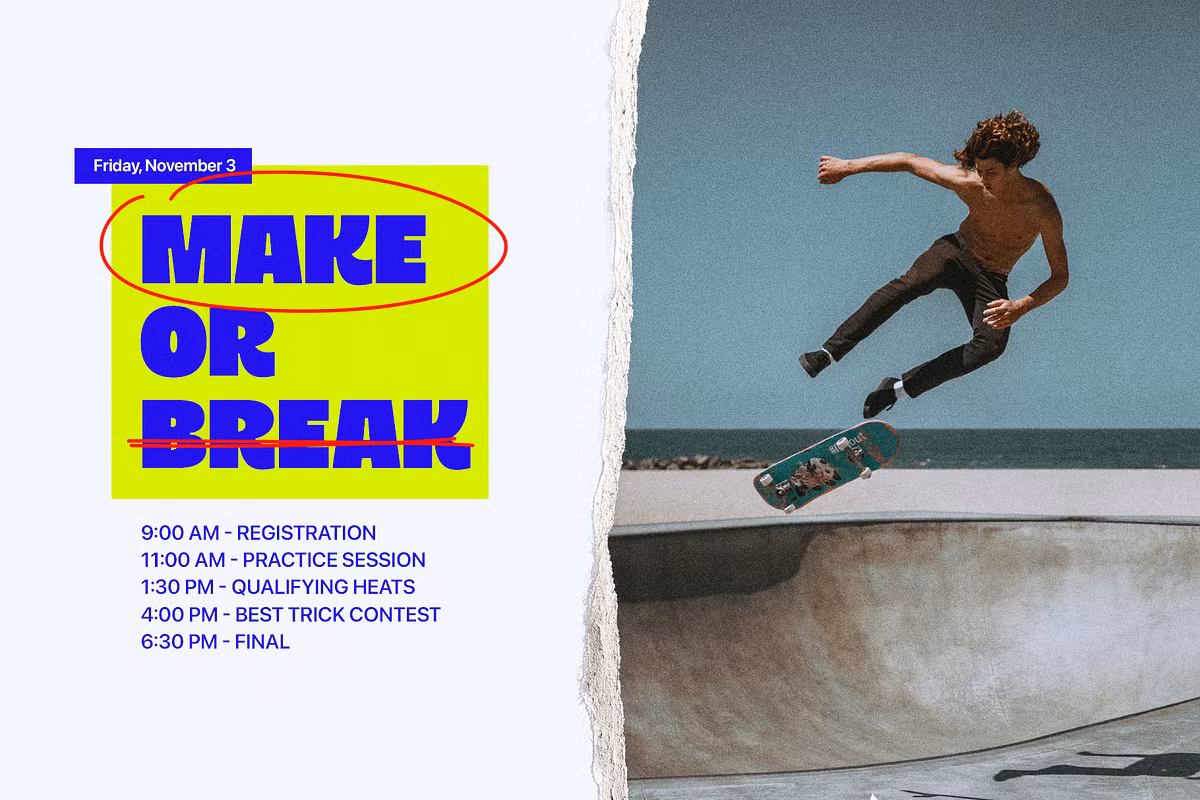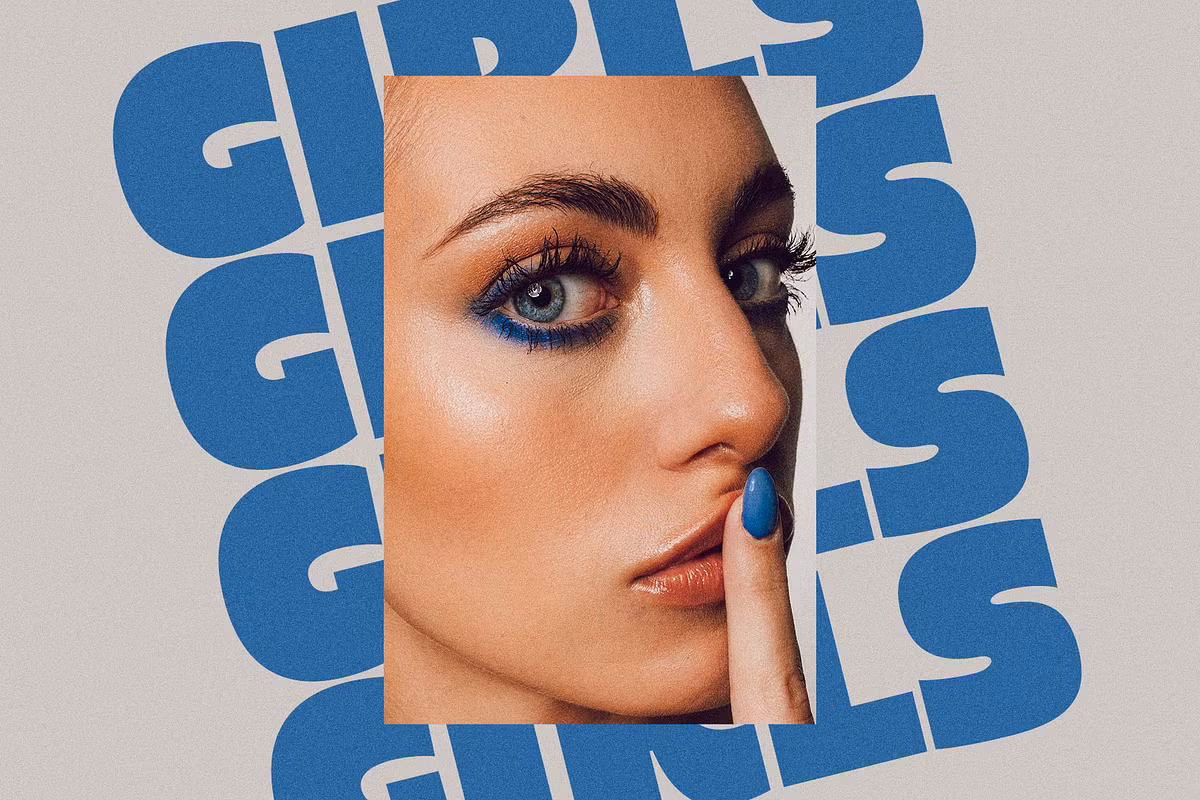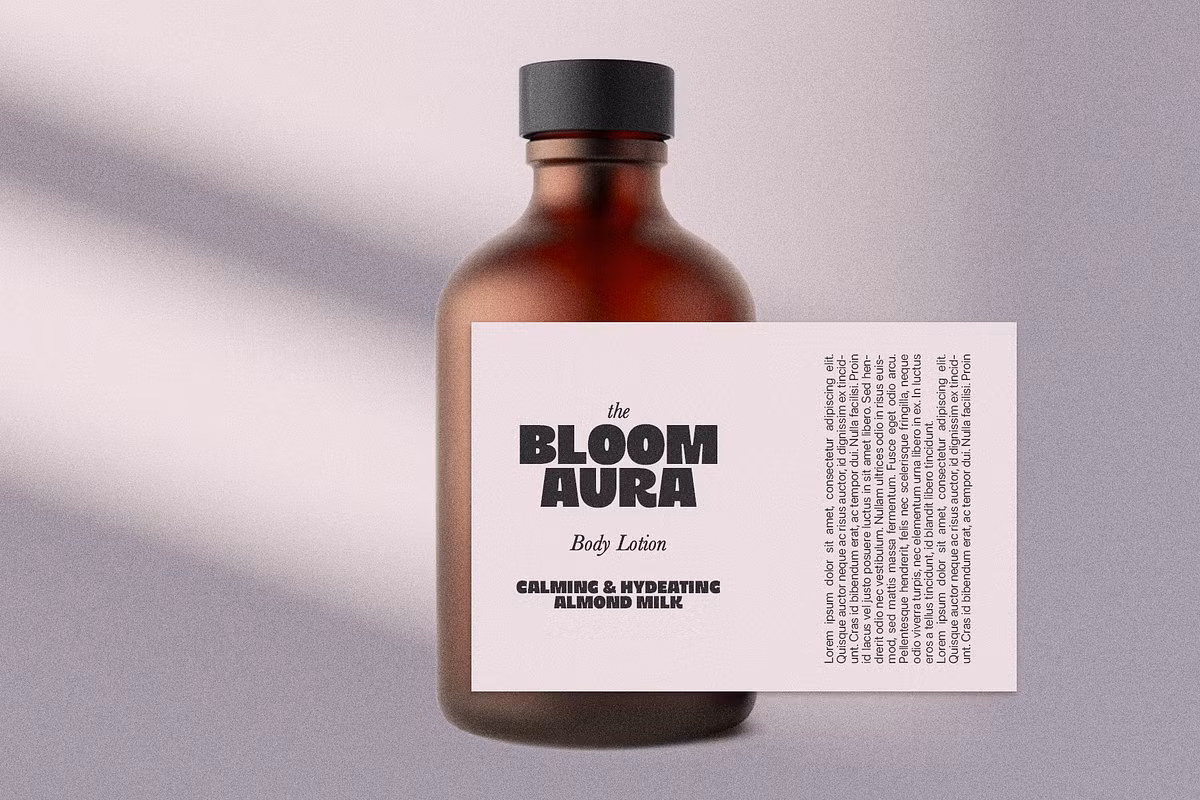
GRAND BOLD Ultra Heavy Font
GRAND BOLD Ultra Heavy Font: Nostalgic Typeface for Bold Design
GRAND BOLD is a font. GRAND BOLD takes ideas from the look of the 80s and the 90s. GRAND BOLD feels old. Grand BOLD helps anyone who wants a look, in a project. GRAND BOLD has a set of characters and GRAND BOLD works in places. GRAND BOLD fits in the ads in the layouts in the brand work and, in the poster making.
Bold typography example showcasing GRAND BOLD font
GRAND BOLD font displayed in a typographic example
Design Style of GRAND BOLD
The design of BOLD shows the lively spirit of the late 20th century. GRAND BOLD has a weight and GRAND BOLD stands out in any design project. The font shows edges and strong shapes. Those features give BOLD a fun but strong feel.
GRAND BOLD has a feel. GRAND BOLD works. GRAND BOLD works well for headlines that catch the eye. The bold letters of BOLD make the message stand out. Designers choose BOLD when they want a look that feels old and still feels modern. The look of BOLD mixes the past with a style.
Flexibility in Design
When I design a poster or a modern branding campaign I reach for BOLD. The look of GRAND BOLD blends, into the contexts I work with. GRAND BOLD gives me flexibility that few fonts have.
A vibrant poster featuring GRAND BOLD font
Example of a vibrant poster using GRAND BOLD font
Character Sets and Features
GRAND BOLD has a set of characters. The set includes the alphabet, the punctuation marks and the characters, from languages. When I use BOLD I can write in languages. GRAND BOLD works well in the markets.
• Full Set of Standard Alphabet: A-Z, a-z
• Punctuation: Punctuation includes all the punctuation marks I need.
Multilingual Support: AÁĂÂÄÀĀĄÅÃÆBCĆČÇĊDÐĎĐEÉĚÊËĖÈĒĘẼFGĞĢĠḠHĦIIJÍÎÏİÌĪĮĨJKĶLĹĽĻŁMNŃŇŅÑ OÓÔÖÒŐŌØÕŒPÞQRŔŘŖSŚŠŞȘẞTŤŢȚUÚÛÜÙŰŪŲŮŨVWẂŴẄẀXYÝŶŸỲỸZŹŽ
Illustration of character sets available in GRAND BOLD font
Overview of character sets in GRAND BOLD font
Use Cases for GRAND BOLD
I see that the versatility of BOLD makes GRAND BOLD suitable, for different applications. Here are some popular use cases:
• Advertising Campaigns: The font is bold. The bold look of the font makes the font perfect, for ads that must grab attention.
• Headlines: I use BOLD for headlines, in magazines or online articles. The headlines then stand out.
• Branding: I have used BOLD for branding. I find that GRAND BOLD works for the logos and the branding materials that need a presence. GRAND BOLD gives a feeling of confidence and reliability.
• Posters: The font works well for event posters or promotional materials. Posters that use this font have a look that draws the eyes of people. I have used this on posters. It always catches peoples’ eyes.
• Merchandise: Use GRAND BOLD on t-shirts, bags, and other merchandise to create memorable designs.
I see each of these use cases shows the strength and boldness of BOLD. GRAND BOLD is an addition, to any designers toolkit.
Merchandise displaying designs with GRAND BOLD font
Merchandise examples featuring GRAND BOLD font for designs